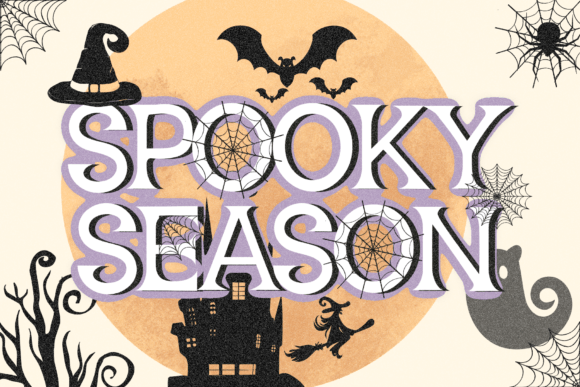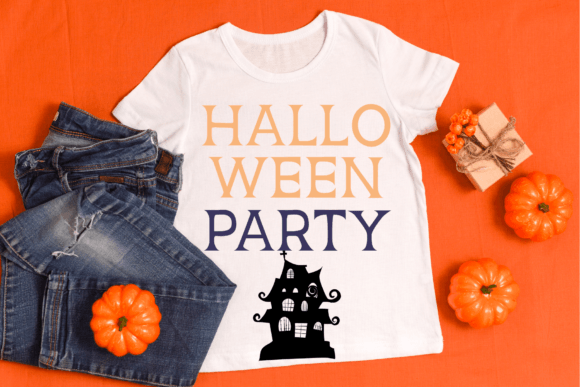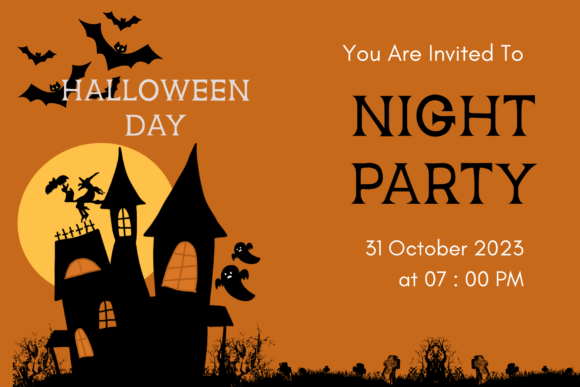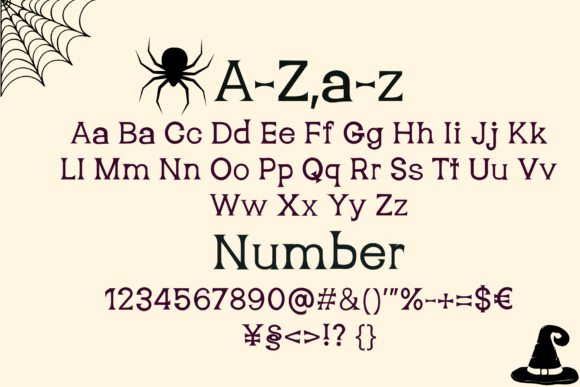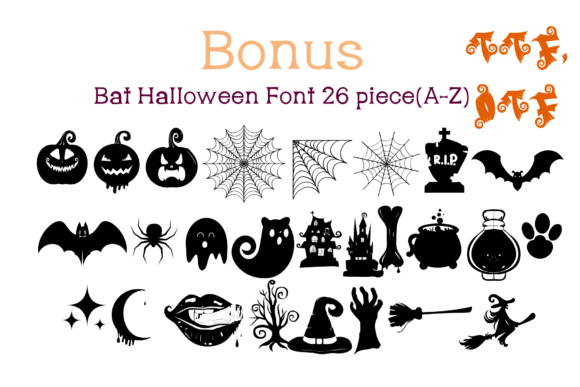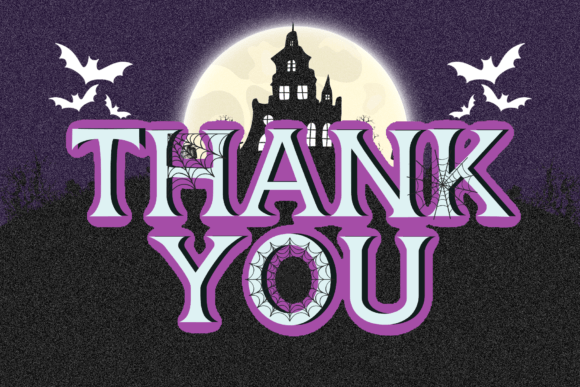
The Perfect Font for a Frightful Night: Unleashing the Power of Bat Halloween Font
As the clock strikes midnight on Halloween night, the imagination runs wild, and creativity knows no bounds. You’re rummaging through your craft supplies, searching for the perfect font to add a touch of eeriness to your spooky designs. And then, it hits you – the perfect font to make your creations stand out from the rest.
Enter Bat Halloween Font, a font that’s specifically designed to add a creepy and eerie touch to your text. With its extra Halloween elements, this font is perfect for creating Halloween-themed party invitations, posters, or spooky crafts. Whether you’re a seasoned designer or a DIY enthusiast, Bat Halloween Font is a valuable tool that will elevate your designs to the next level.
Bat Halloween Font Key Features
- Font Style: A spooky, gothic-inspired font perfect for Halloween and fall-themed designs.
- Unique Characteristics: Includes unique characters such as bats, spiders, and jack-o’-lanterns, adding a touch of Halloween spirit to designs.
Review of “Bat Halloween Font”
Overall, I think “Bat Halloween Font” has some great elements that make it perfect for Halloween-themed designs, but it’s not without its limitations. ✨ Here are some things that work well:
- The spooky vibe is on point – the font is perfect for capturing the eerie atmosphere of Halloween.
- The bold, gothic-inspired design elements are well-executed and add to the font’s Halloween charm.
- The font is highly customizable, with a range of styles and sizes to choose from.
- The font may not be suitable for use in all contexts, particularly for more formal or professional designs.
- The font’s bold design elements can be overwhelming in some cases, making it difficult to read or use in large quantities.
Overall, I think “Bat Halloween Font” is a solid choice for Halloween-themed designs, but it’s essential to consider its limitations and potential drawbacks before using it in your projects.
To get the most out of the Bat Halloween Font, try using it in combination with other Halloween-themed elements, such as images of bats, pumpkins, and spiders. You can also experiment with different font sizes and colors to create a spooky atmosphere.
The Bat Halloween Font is perfect for creating Halloween-themed invitations, party decorations, and social media posts. You can also use it to create spooky titles and headings for your Halloween-themed projects.